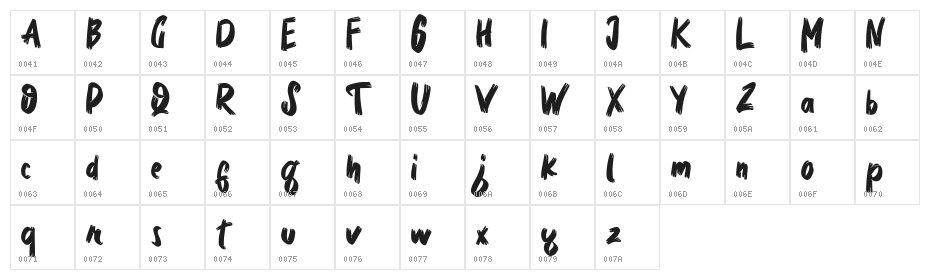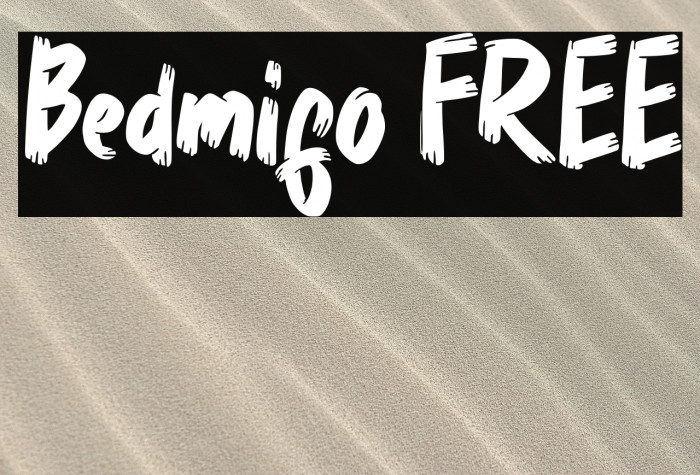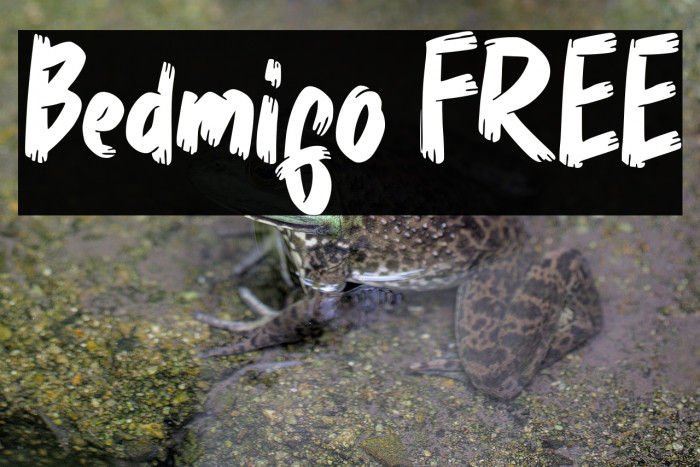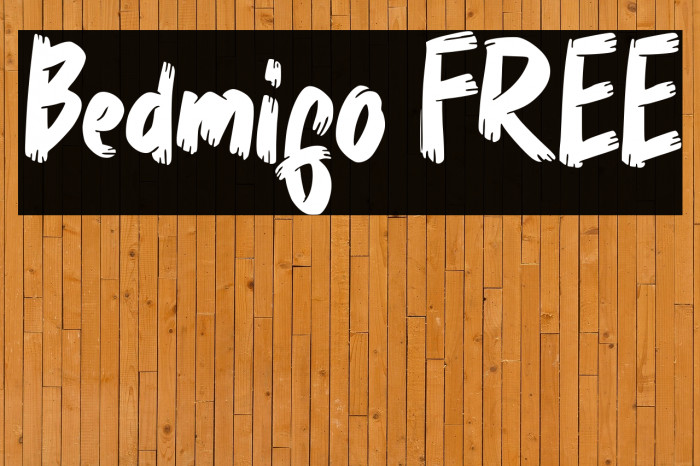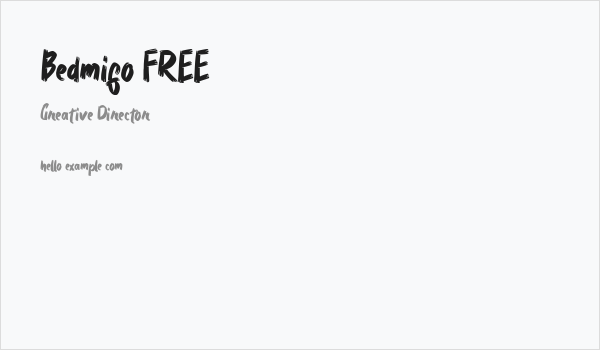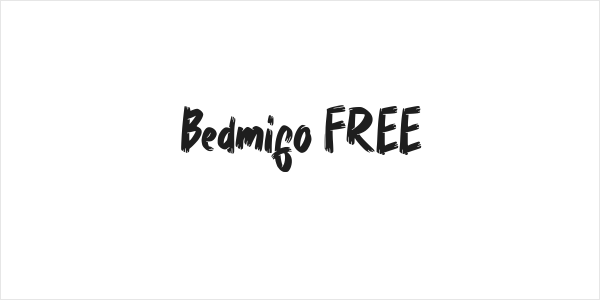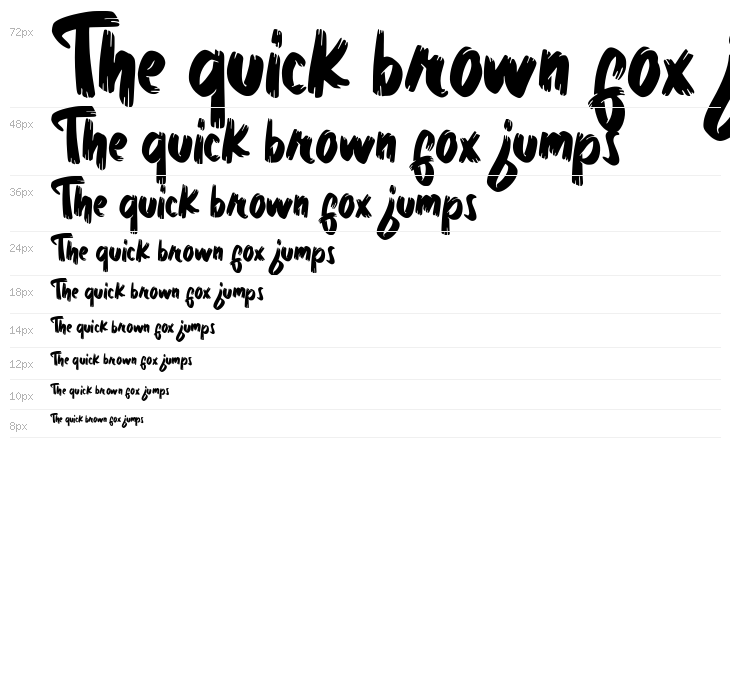
Bedmifo FREE Font
Bedmifo FREE Description
This font features a bold, brush-like style with a dynamic and energetic appearance. The characters are crafted with a rough, hand-painted texture that gives them a lively and artistic feel. The uppercase and lowercase letters maintain a consistent style, with exaggerated strokes and uneven edges that add to the font's expressive nature. The numbers and special characters follow the same design principles, ensuring a cohesive look across all glyphs. This font is ideal for projects that require a bold and impactful visual statement, such as posters, branding, and creative designs.
| Proposed Projects | Ideal for posters, branding, creative designs, and any project needing a bold visual impact. |